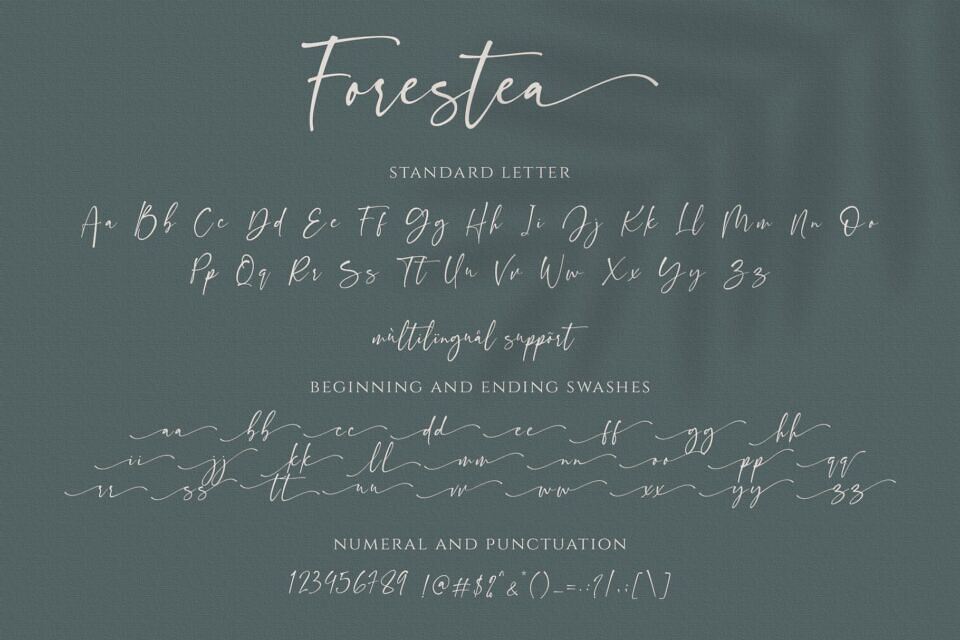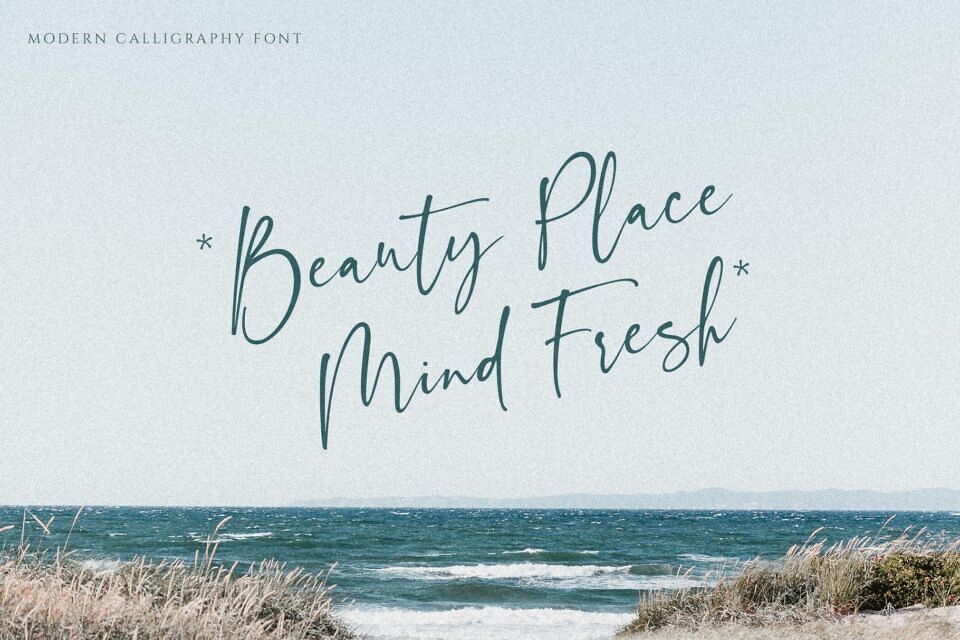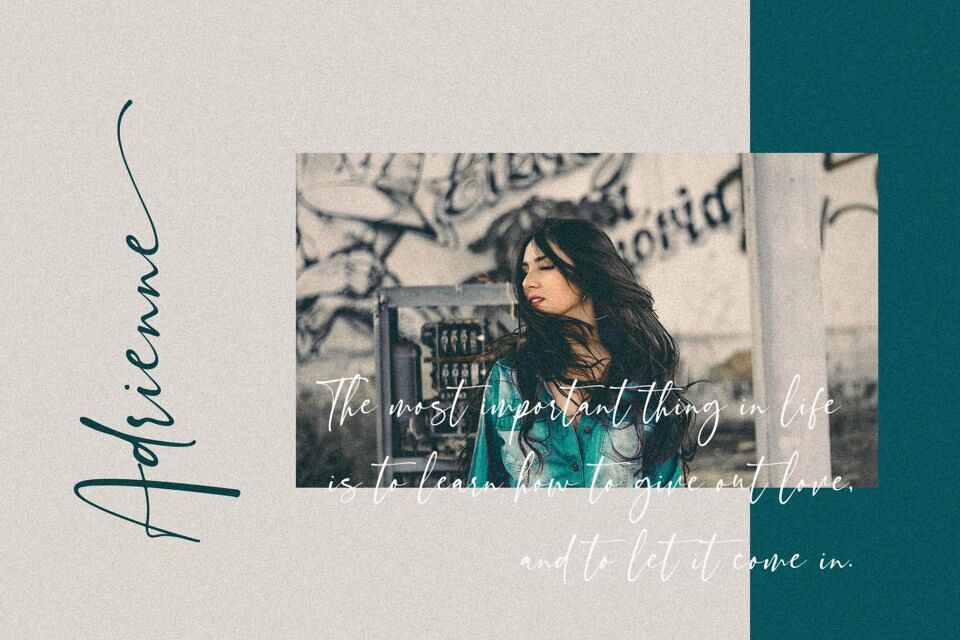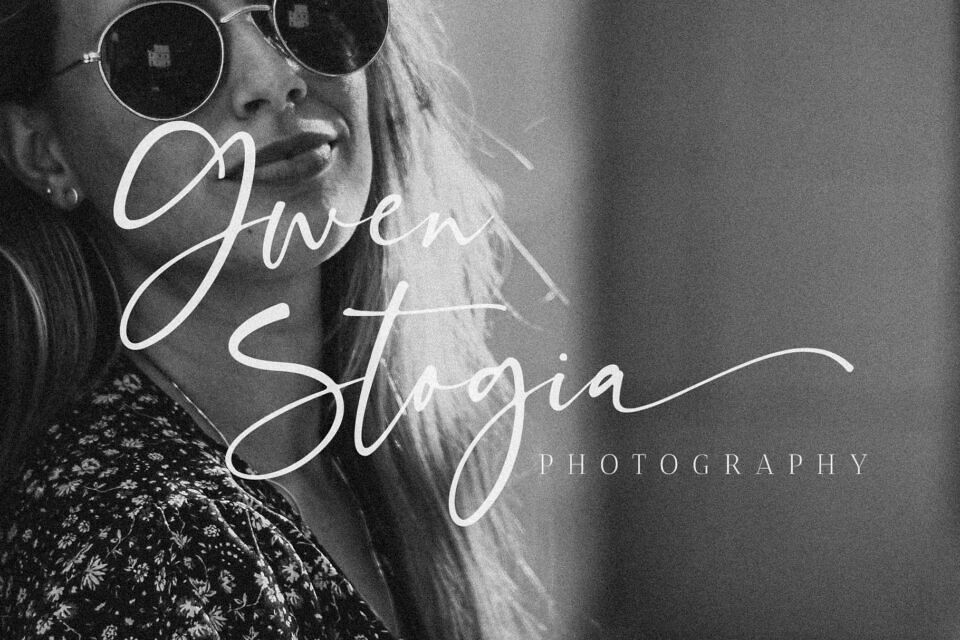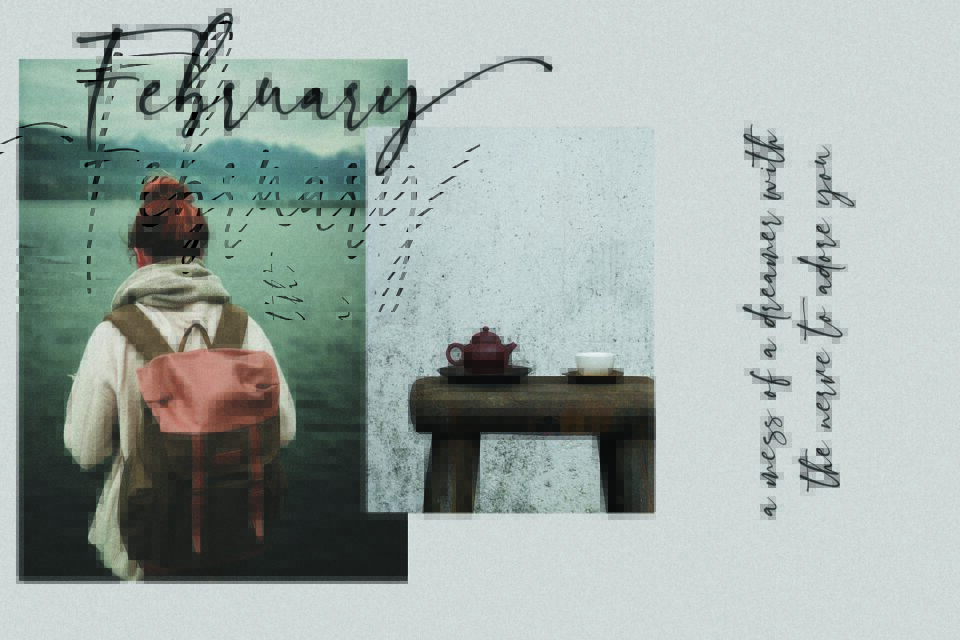
Forestea Font
Introducing the new Forestea, a modern calligraphy font! For those of you who are needing a touch of elegant, chic and modernity for your designs, this font was created for you!
Forestea was built with OpenType features and includes ligatures, alternates, beginning and ending swashes, numbers, punctuation, and it also supports other languages.
The font has smooth texture, so would be perfect for all types of printing techniques, you can do embroidery, laser cut, cricut, gold foil etc.